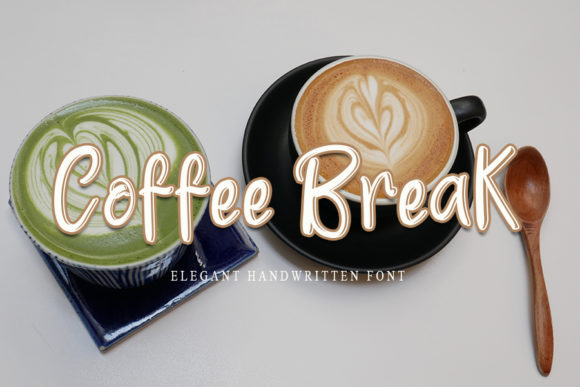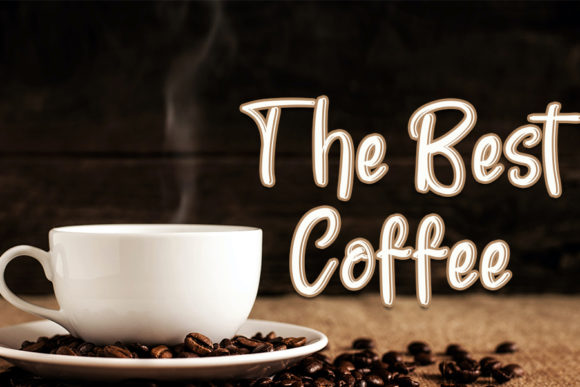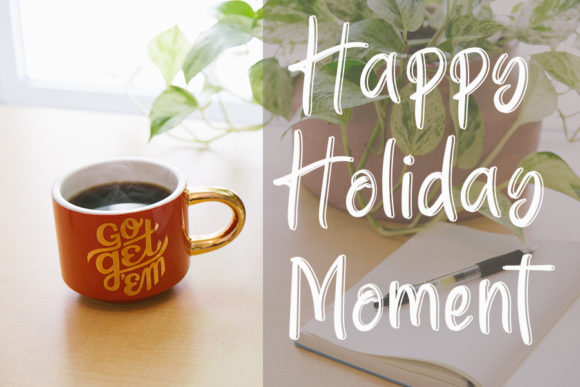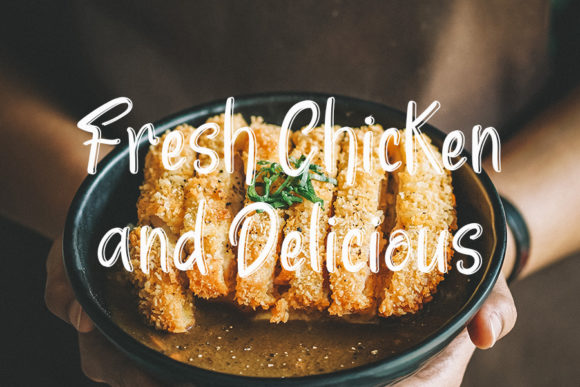
Coffee Break Font
About Coffee Break Font
Coffee Break is a casual and trendy handwritten font. It can be used for various formal and informal purposes such as logos, wedding invitations, headings, t-shirts, letterhead, signage, labels, news, posters, badges and so much more.